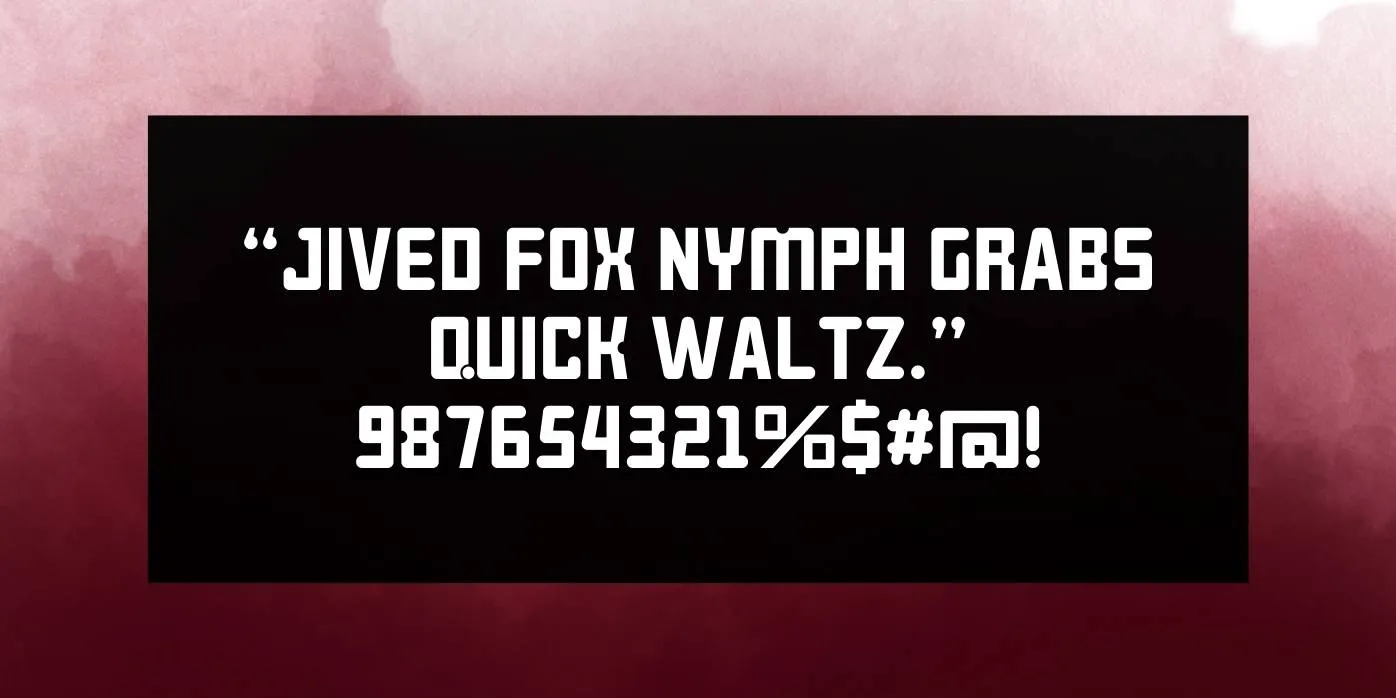
BROKEREN MIRING Font
BROKEREN MIRING Font is a different type of decorative design font with a humanist style. That typeface is designed by Soren Dahl in 1995. Soren Dahl Is a Danish designer. In the name of this font “BROKEREN” is a Danish Word for “bridge”.
And “MIRING” is that sound made by the bridge as its collapses. That Typeface includes punctuation marks and both lower-case letters and upper-case letters, That type of font is suitably used for Display purposes, Headings, And is widely used for applications. In this font, there are 2 different styles available. Looking at that typeface, they look perfect with this font, So used the amazing typeface Laguna creek font, which is also perfect for using adobe photoshop and CSS.
And if you are looking for that type of decorative font So the perfect choice for your design project or any other project is roboto font. They look very gorgeous and looking humanist. Usage If you are looking for that type of typeface which is simple but decorative so the BROKEREN MIRING is the right choice, If the designers design different types of designs in which the headlines or some eye-catchy font so they used that typeface. You can use it, especially for Headlines or Some billboards and posters.
In this typeface there is various type of categories available, they support different languages such as Norwegian, English, Ukrainian, Cyrillic, etc. This font is also paired with the future shock font. To increase the prominence in the design or project So that typeface is a great choice for you. Make the traditional typography using that font, And the basic characters of that font style are Amazing.
BROKEREN MIRING typeface is a decorative type font with a humanist style. The font includes both lower-case and upper-case letters. What font is similar to BROKEREN MIRING Font? Looking at their stylish design and simplicity So the few are very close to that font such as Commando font and Evogria font etc.